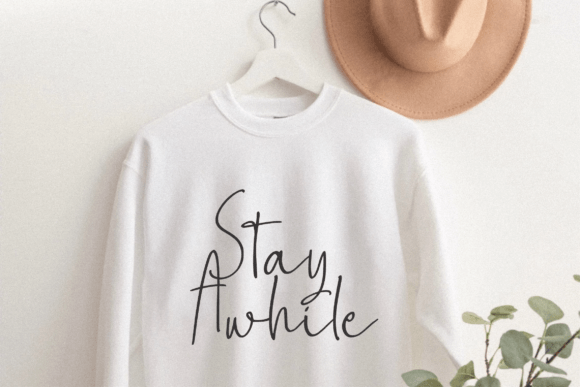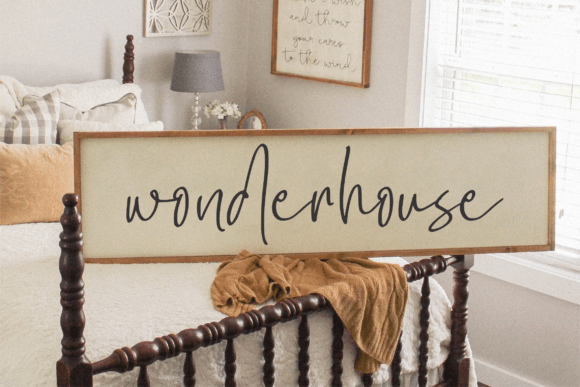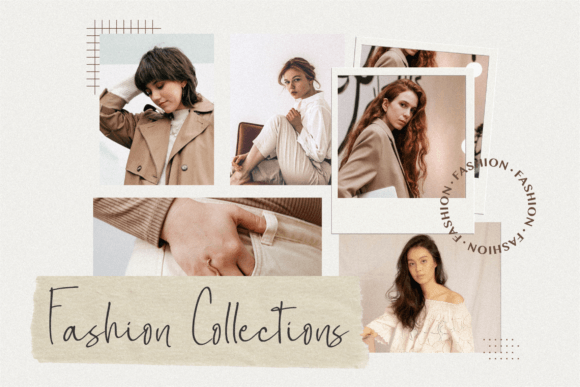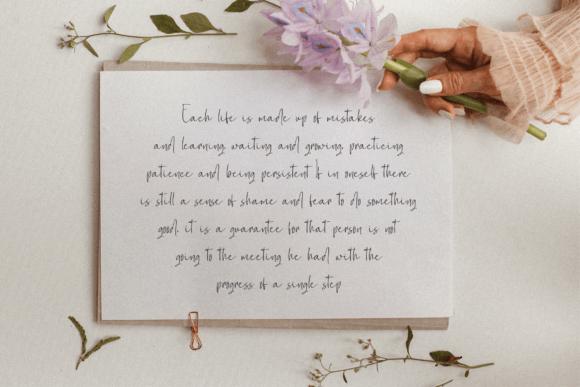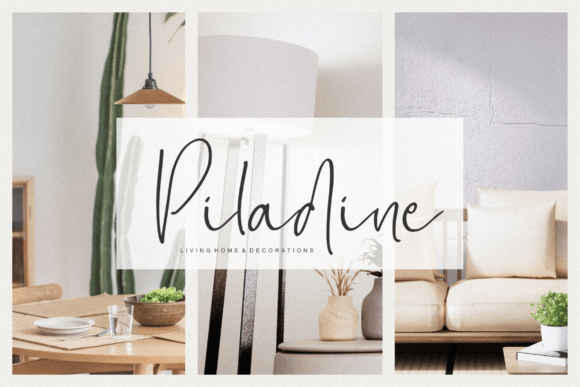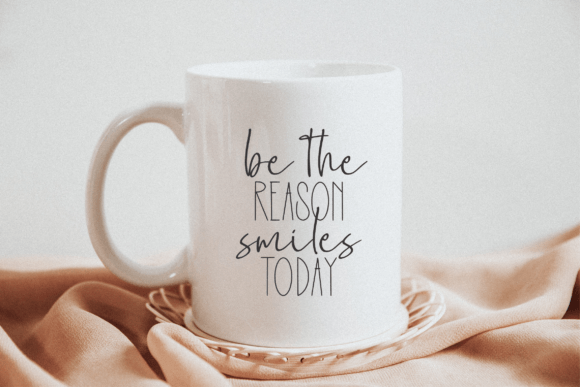
Introduction to Secondwhy Font
Have you ever found yourself staring at a blank canvas, waiting for the perfect font to bring your creative vision to life? That’s exactly what happened to me the last time I was working on a branding project. I wanted something that would add a touch of elegance and whimsy to my design, but nothing seemed quite right. That’s when I stumbled upon the Secondwhy Font – a stunning, modern handwritten font that instantly captured my heart.
As a designer, I can attest to the value of having high-quality, versatile fonts in your design arsenal. The Secondwhy Font is a game-changer, offering a unique blend of sophistication and playfulness that’s perfect for a wide range of creative projects, from product packaging to social media graphics.
With its beautiful, flowing lines and transparent background, the Secondwhy Font is a design resource that’s sure to elevate your next project to new heights. And the best part? It’s available for free download, making it an accessible and valuable addition to any designer’s toolkit.
Key Features of Secondwhy Font
- Designed as a versatile design resource, suitable for a variety of applications, including digital and print media.
- Unique and modern design aesthetic, ideal for those seeking a distinctive look for their creative project.
Honest Review: Secondwhy Font
As a designer, I’m always on the lookout for high-quality design resources to elevate my creative projects. Recently, I stumbled upon the Secondwhy Font, and I must say it’s been a game-changer.
What works well: ✨ The font is incredibly versatile, with a wide range of styles and weights that make it perfect for everything from headers to body text. The transparent background is also a nice touch, allowing for seamless integration with any design.
Here are some of the key features that make the Secondwhy Font stand out:
- High-quality design that’s perfect for print or digital projects
- Wide range of styles and weights
My only criticism is that the font can be a bit overwhelming in larger sizes. ⚠️ This can make it difficult to read, especially in headers or titles.
Overall, I’m thoroughly impressed with the Secondwhy Font. It’s a valuable addition to any designer’s toolkit, and I’d highly recommend it for any creative project.
Getting the Most Out of Secondwhy Font
To get the most out of the Secondwhy Font, experiment with different font sizes, colors, and combinations. This font is highly versatile and can be used for a variety of design projects, from logos to presentations.
The Secondwhy Font is commonly used for creative projects that require a professional and high-quality design. Some common use cases include:
Does the Secondwhy Font support a transparent background?
Yes, the Secondwhy Font supports a transparent background, making it ideal for use on complex backgrounds or with other design elements. This feature is enabled in the font’s settings, allowing you to take full advantage of its high-quality design and versatility.